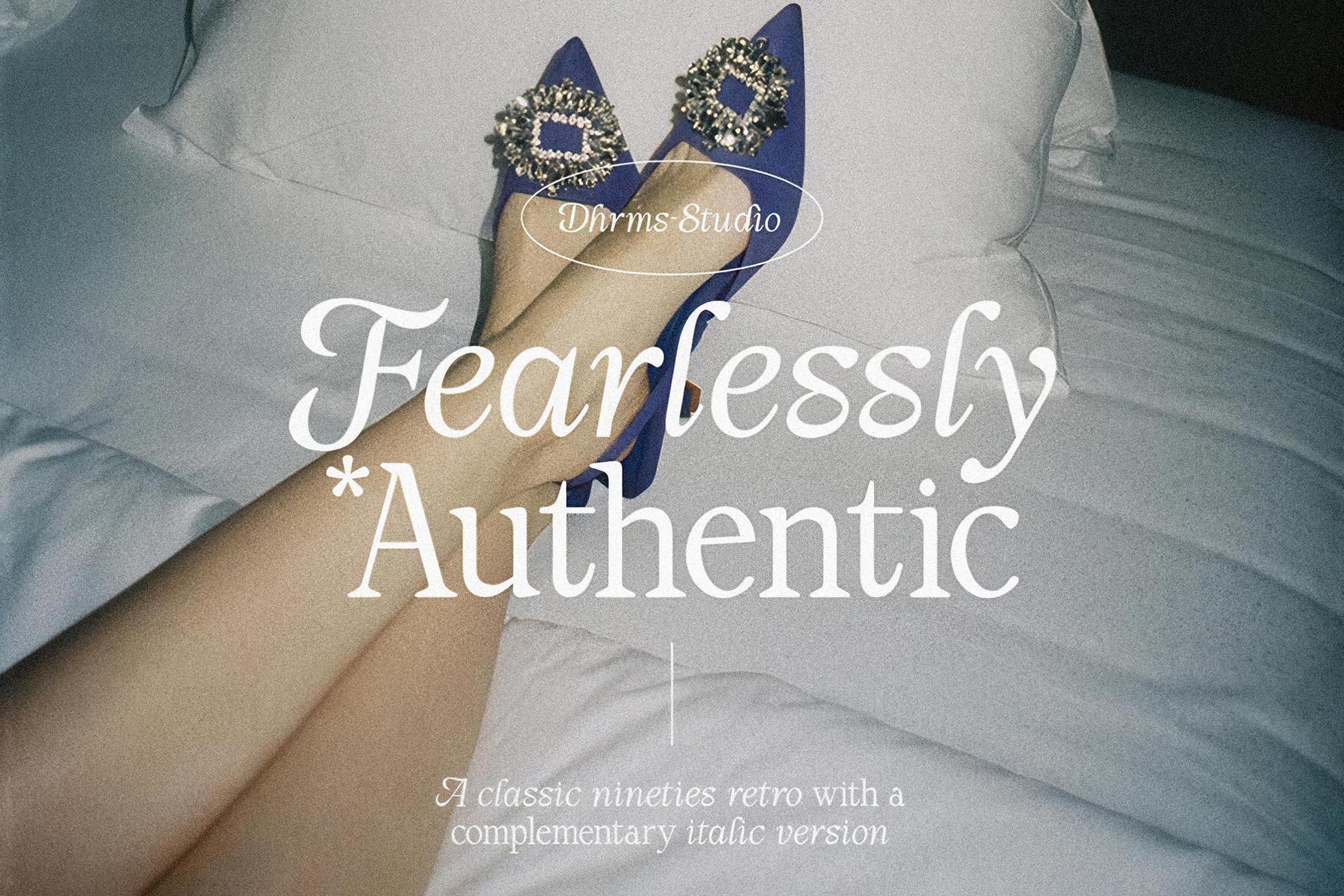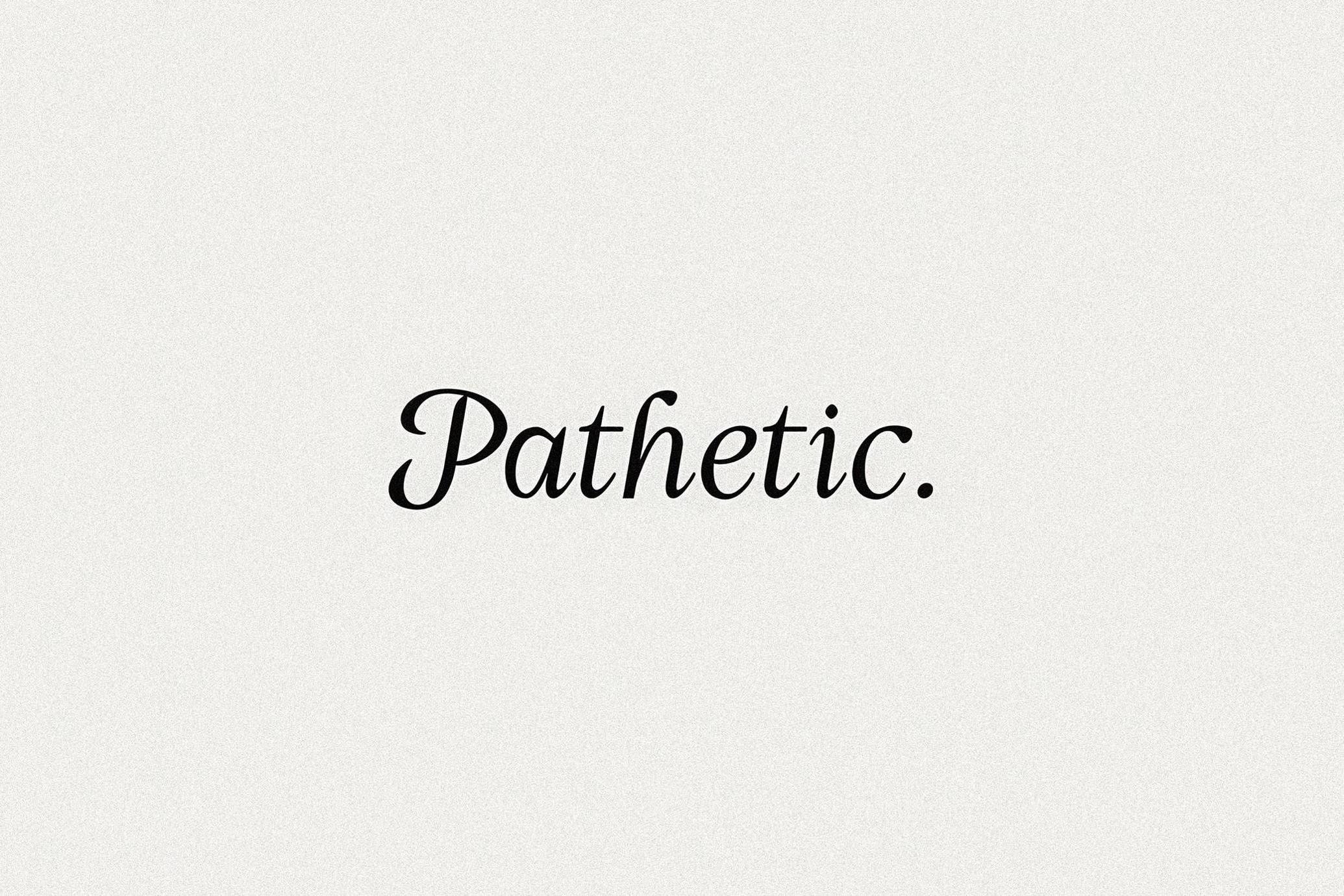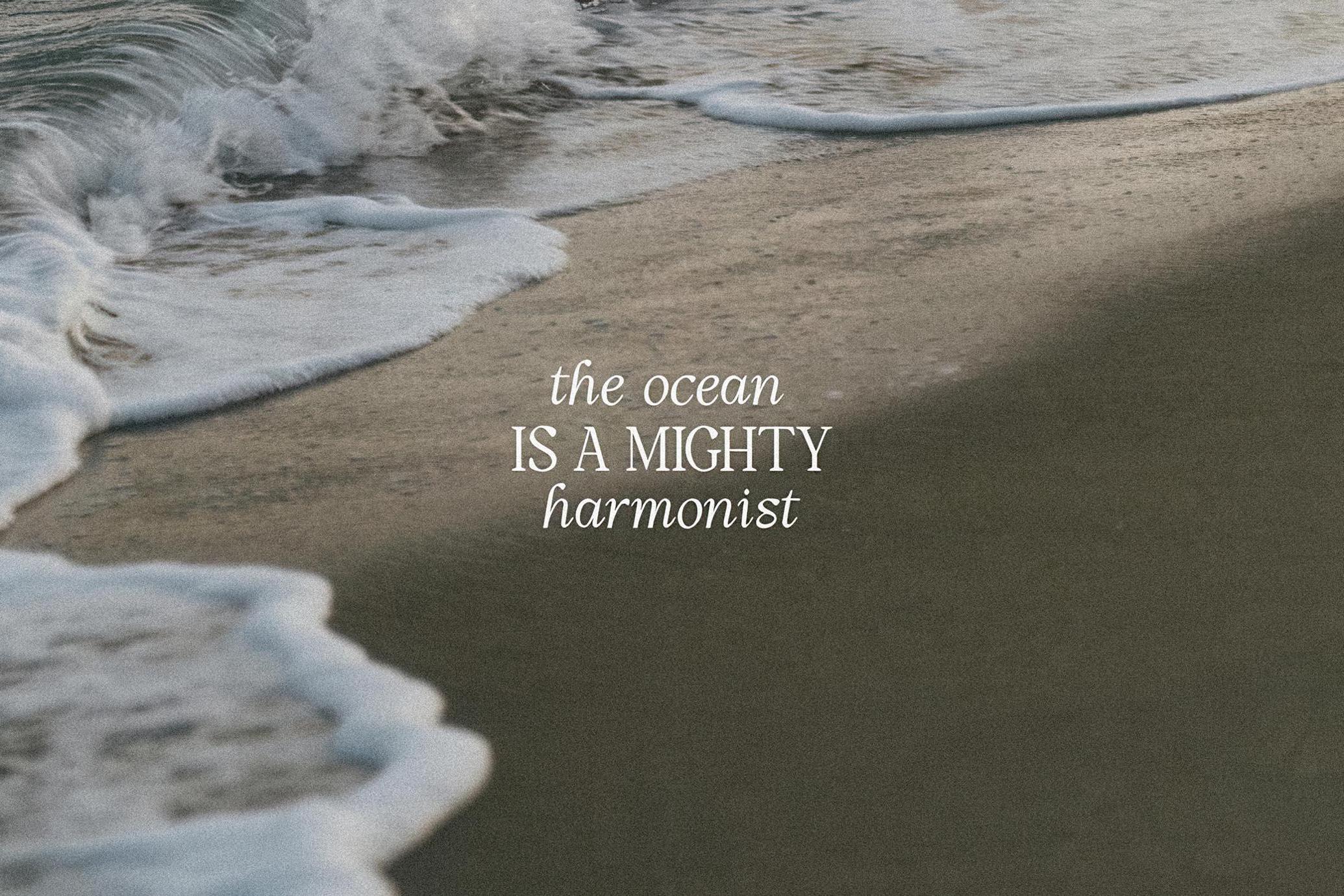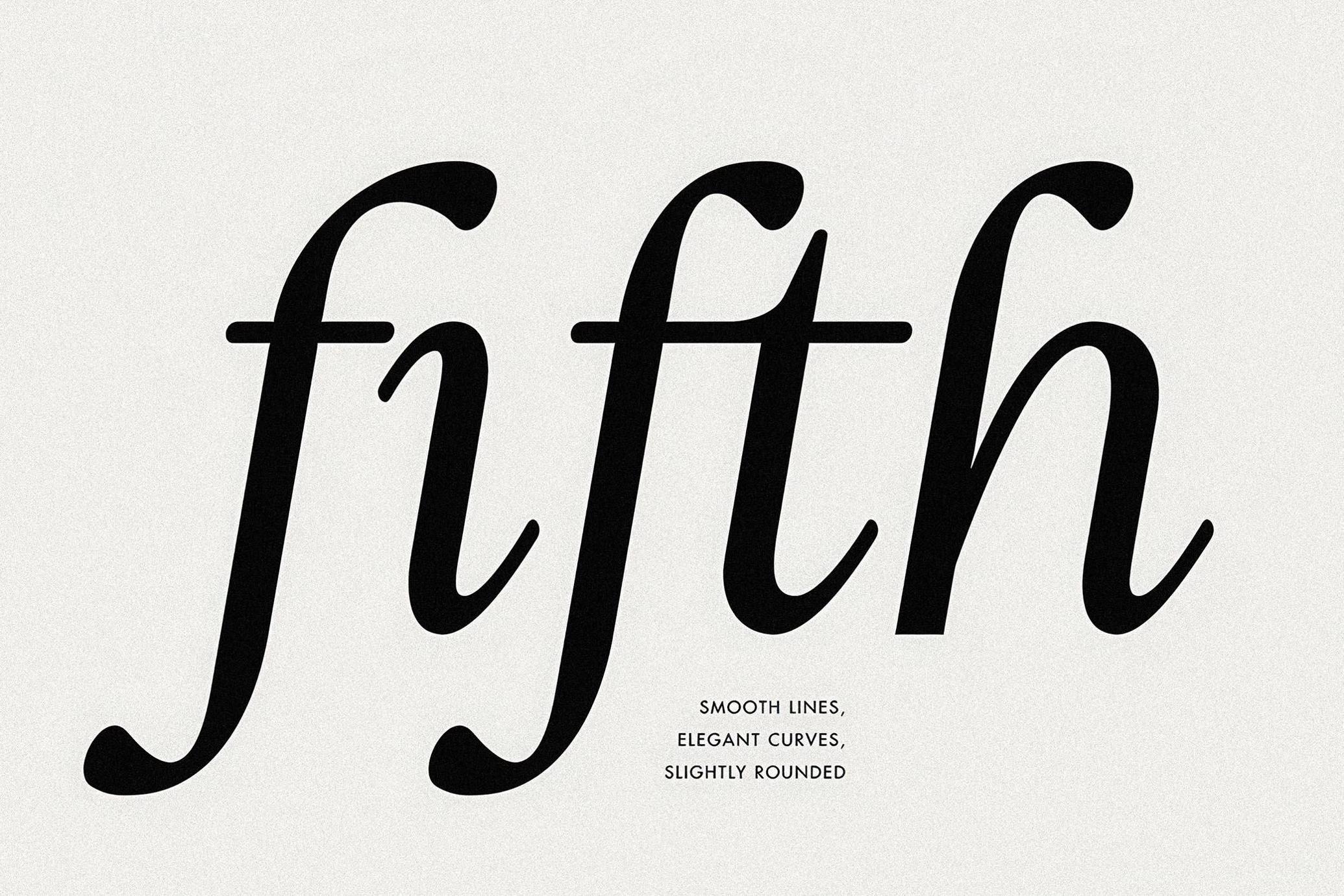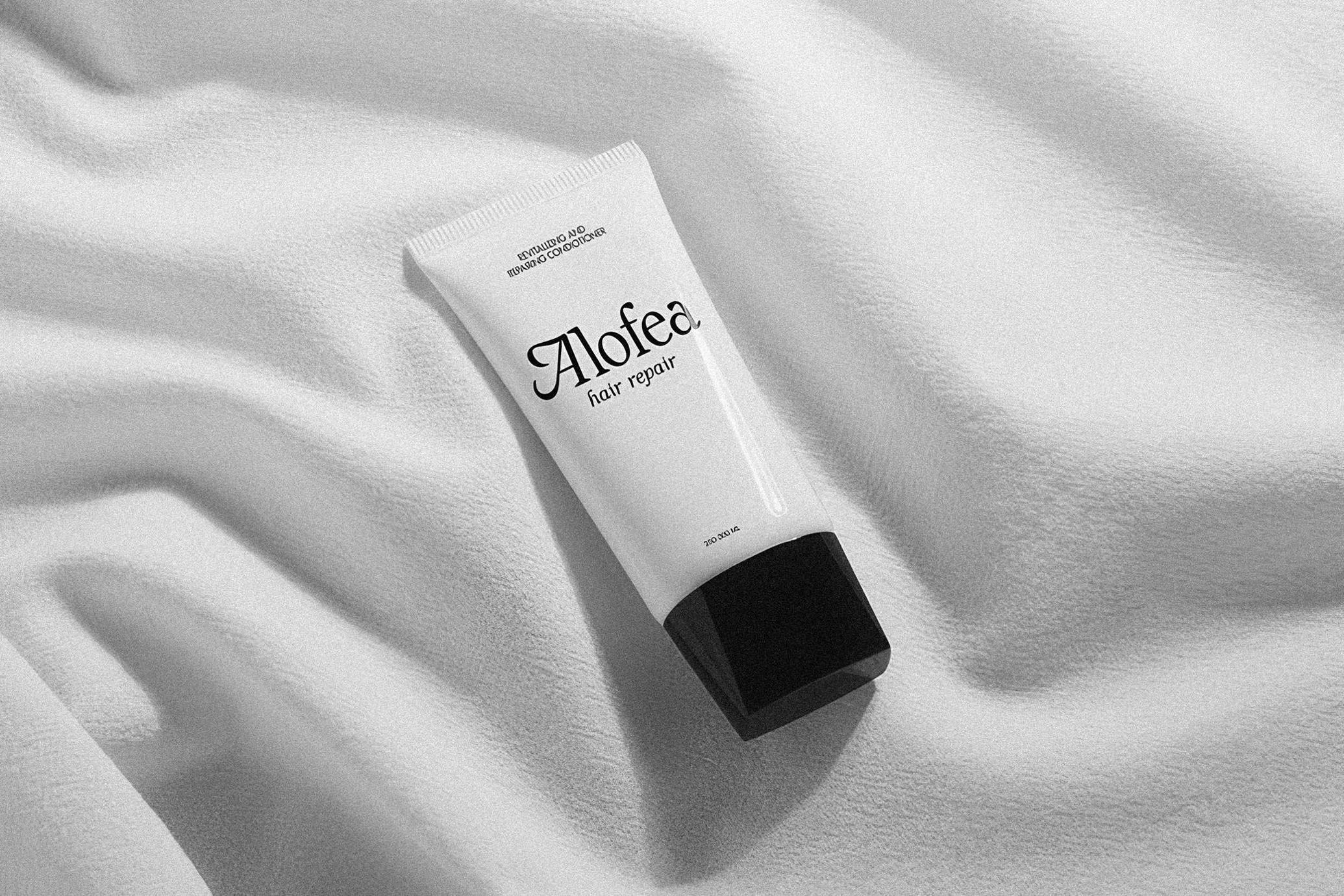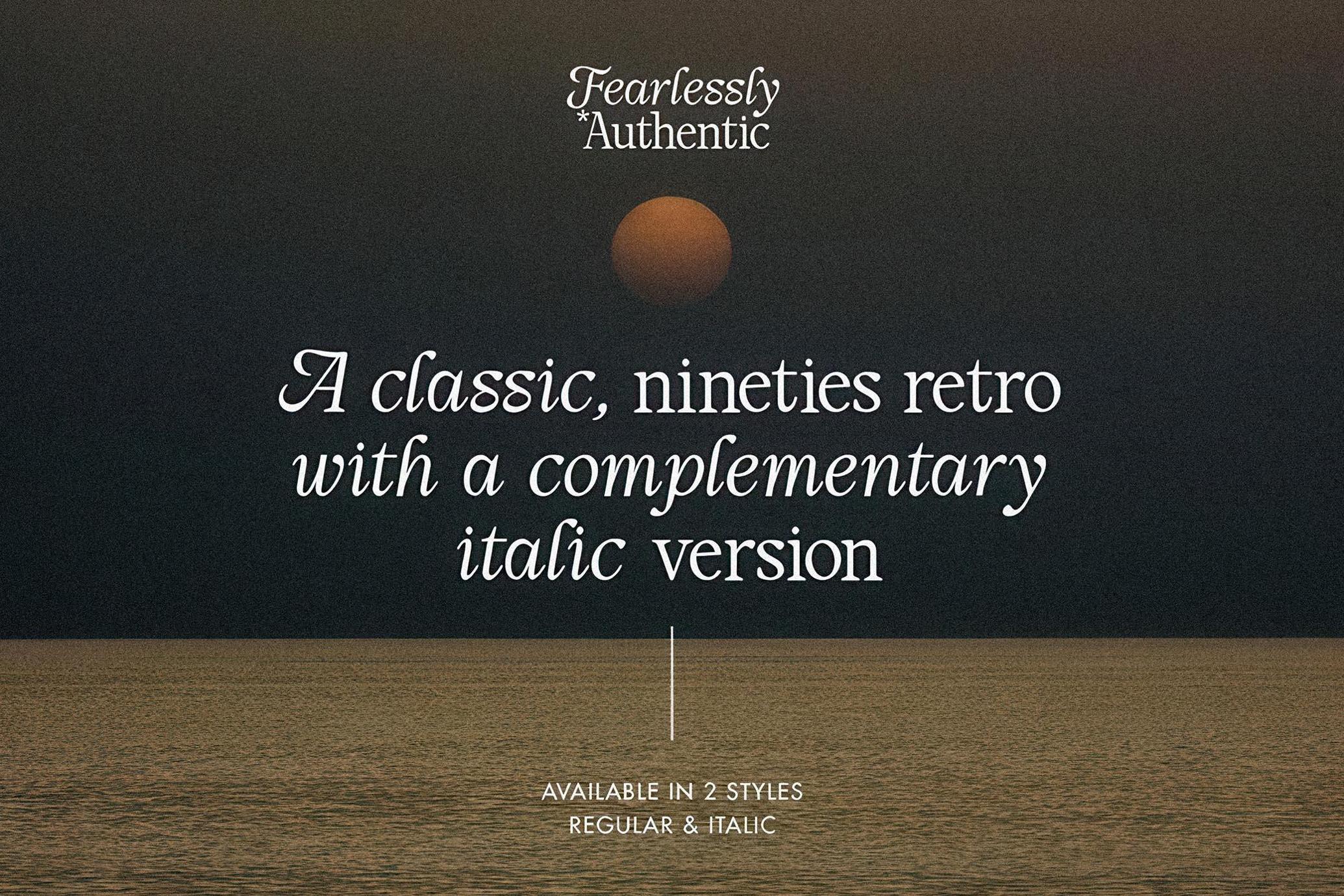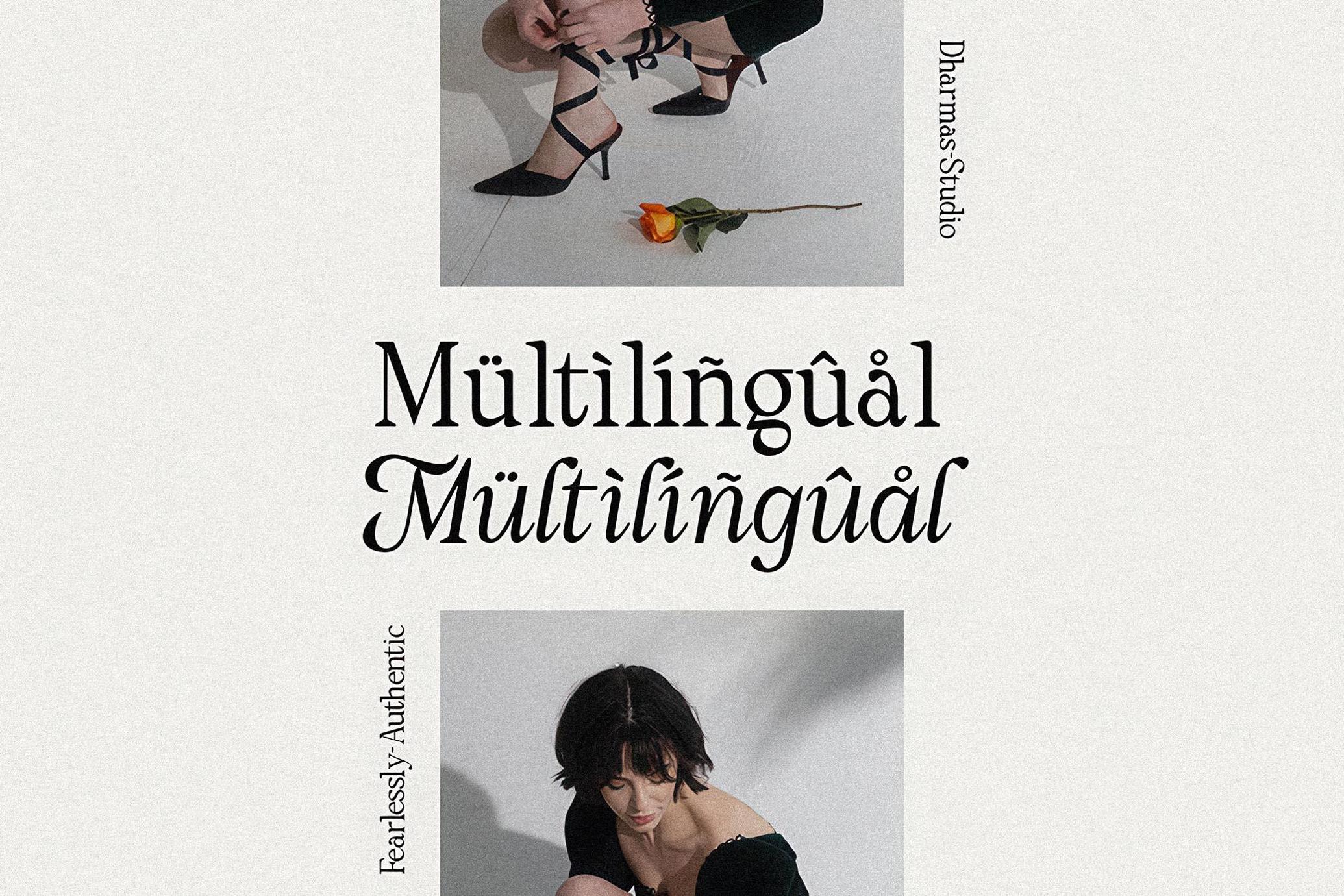
Fearlessly Authentic - Nineties Font
Fearlessly Authentic
The trend is to make thin serif fonts that made the 80s and 90s style, so we wanted to make them too but with a different touch. Make it slightly rounded for a retro look and make your design look great!
Fearlessly Authentic - A classic nineties retro with a complementary italic version. In the italic family, we make it different from the regular and make a shape with a unique uppercase so it looks more classic, retro but a little modern